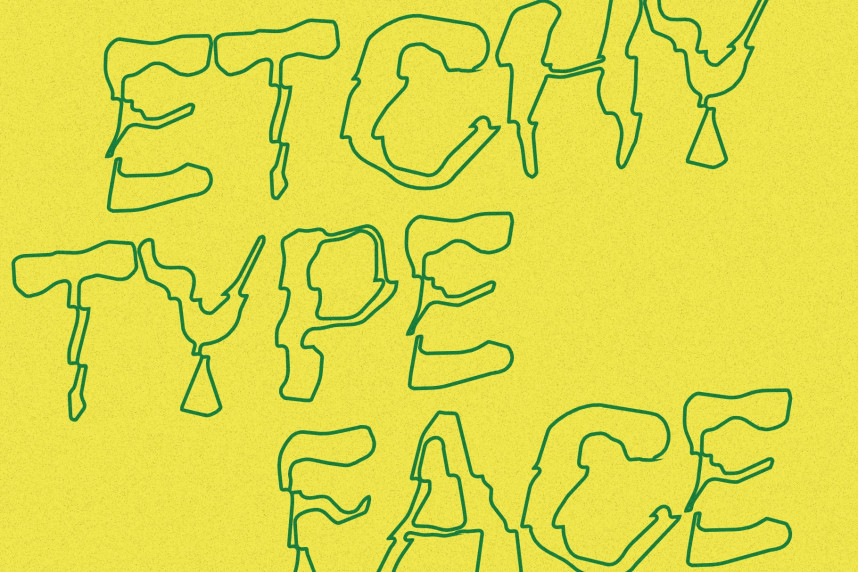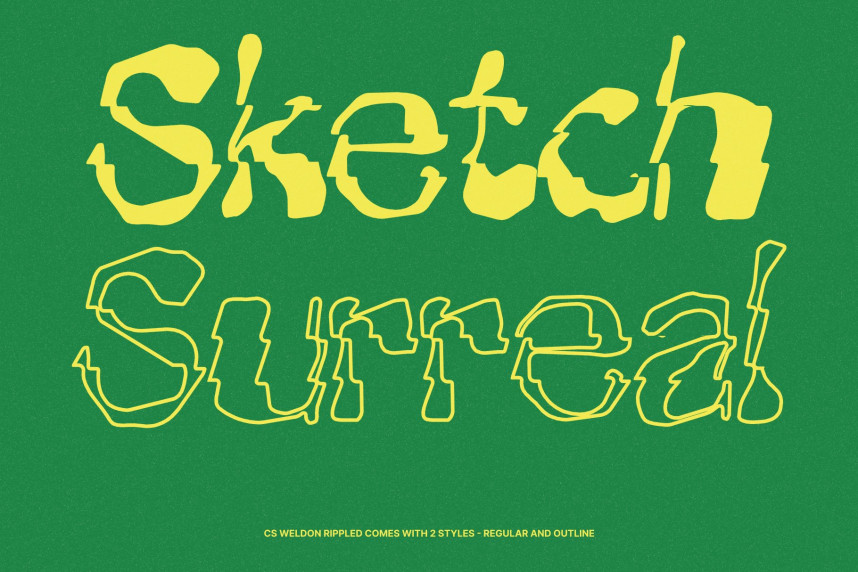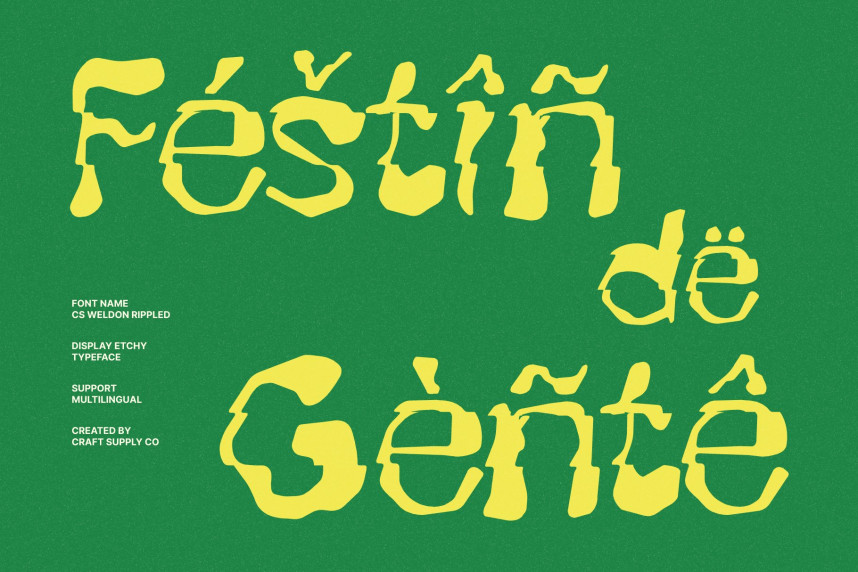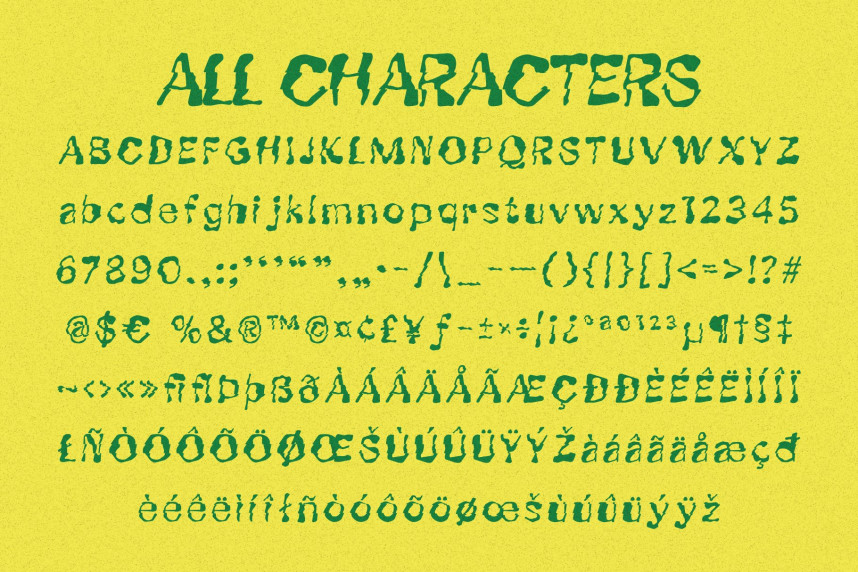
CS Weldon Rippled Font
CS Weldon Rippled Font – Etchy Display Font: Where Handcrafted Expression Meets Fluid Wave Distortion
Sketch-Like Forms with Artistic Character
This is a display font distinguished by its expressive etchy style, featuring rough, sketch-like lines that feel organic, handcrafted, and full of personality. Each letter appears as though it has been carefully drawn with pencil or ink, creating a raw artistic quality that stands apart from conventional digital typefaces. The result is a font rich in texture, individuality, and creative charm.